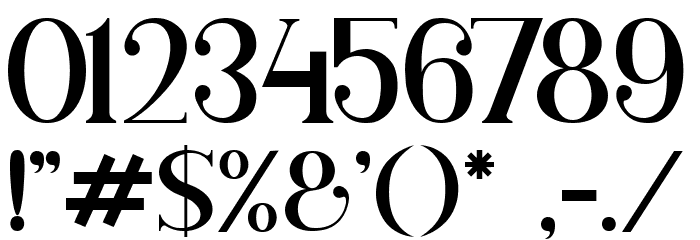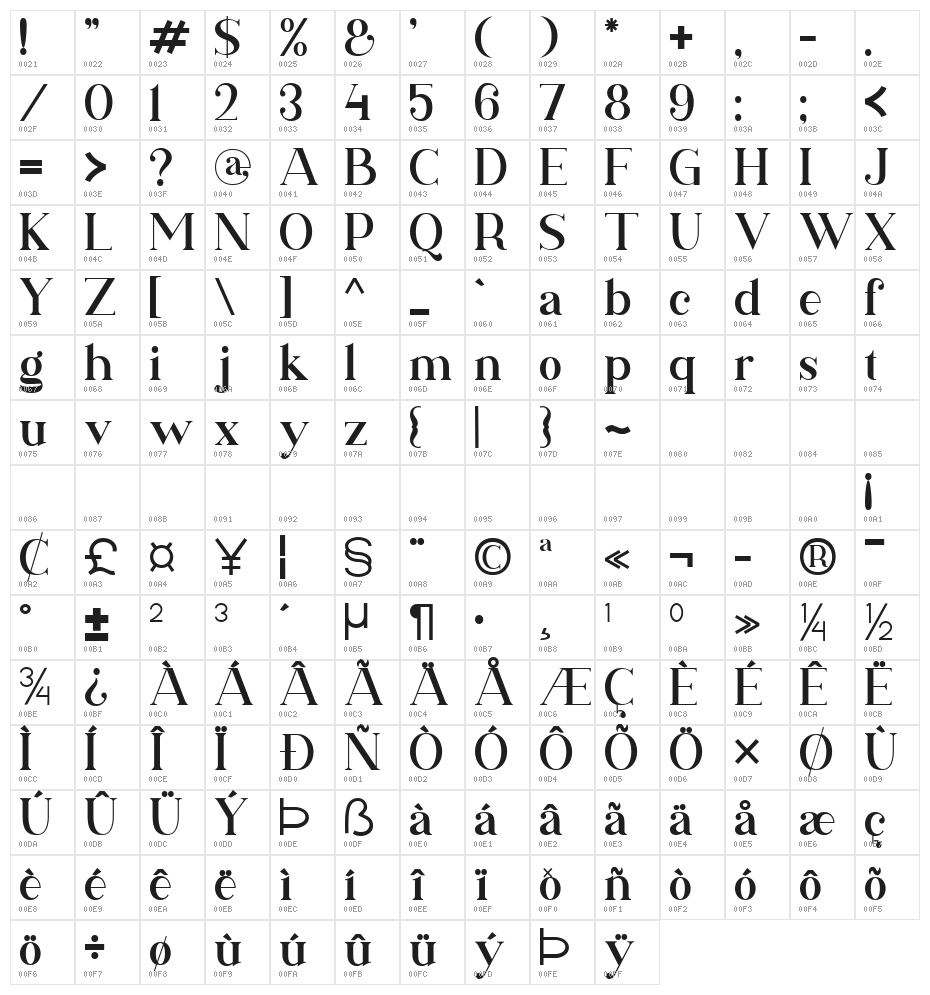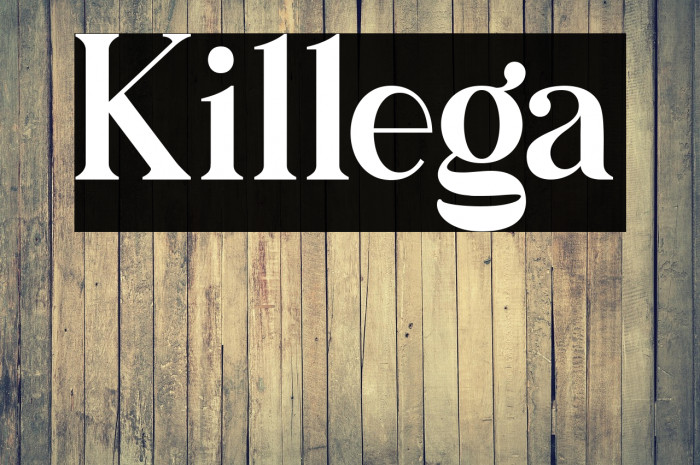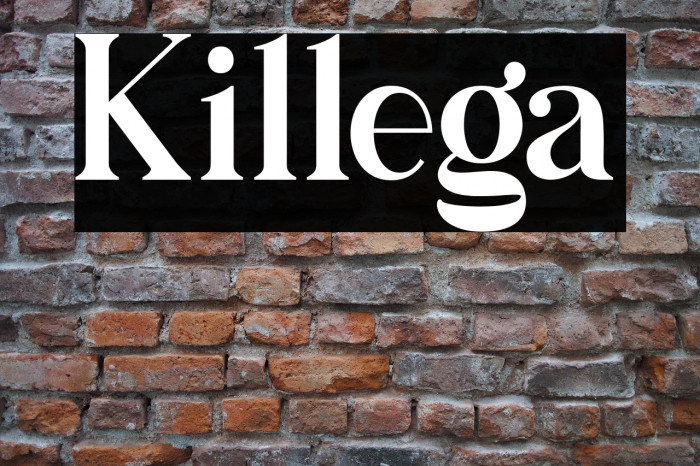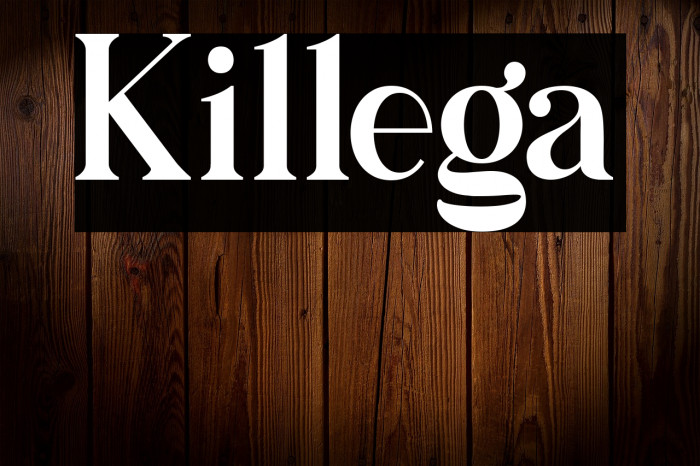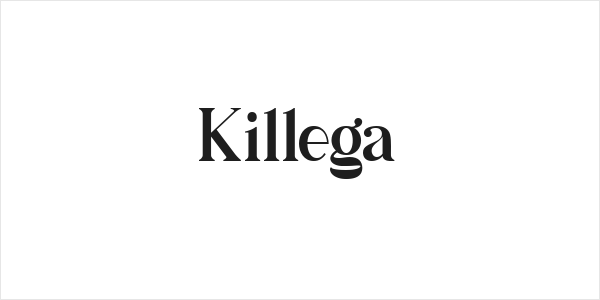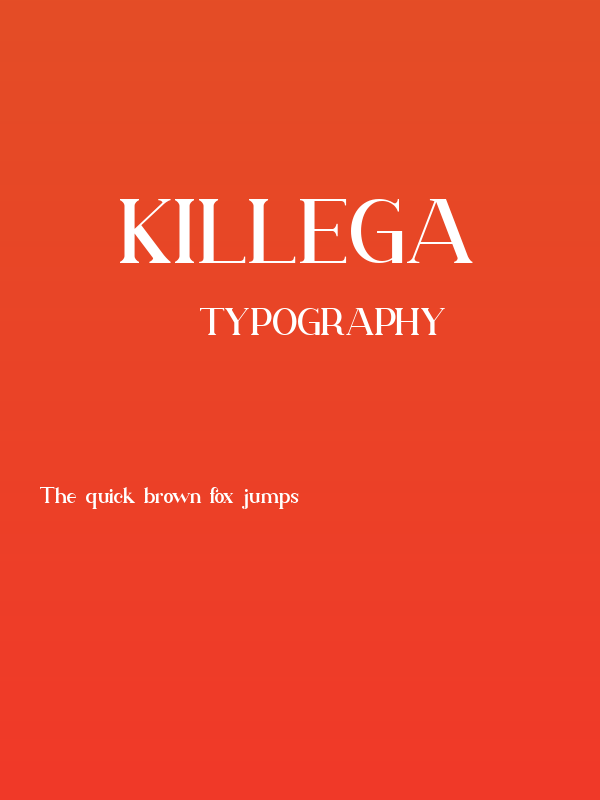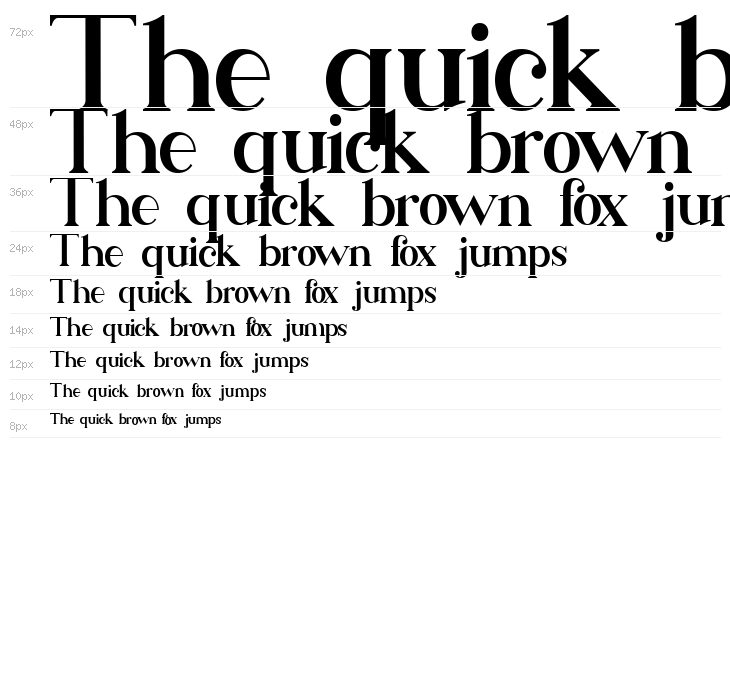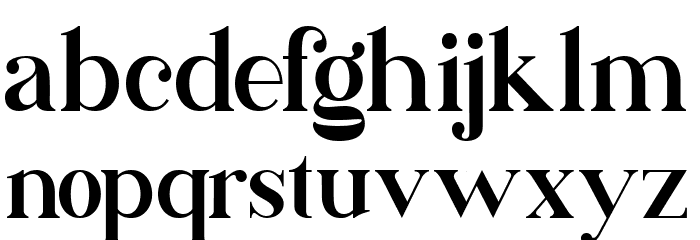
Killega Font
Killega Description
This font features a classic serif design with a modern twist, characterized by its elegant and sophisticated appearance. The uppercase letters are tall and stately, with sharp serifs that add a touch of formality. The lowercase letters maintain a consistent style, offering a smooth transition between characters. The numerals are bold and clear, ensuring readability. Special characters are designed with the same attention to detail, making them suitable for various applications. The overall design is balanced, with a medium contrast between thick and thin strokes, providing a harmonious look.
| Proposed Projects | Ideal for editorial design, book covers, luxury branding, and formal invitations. |